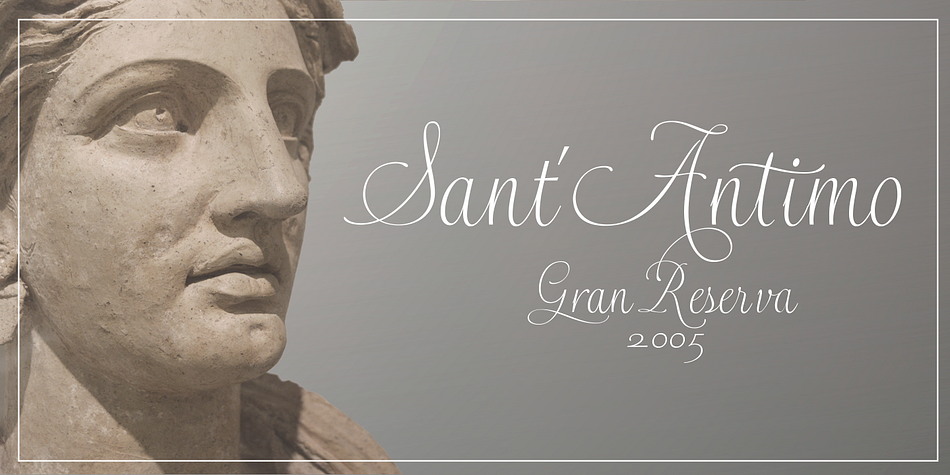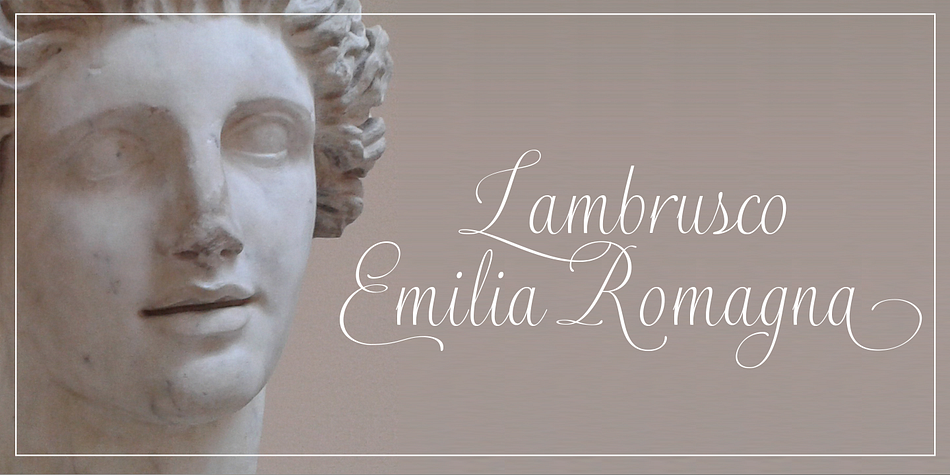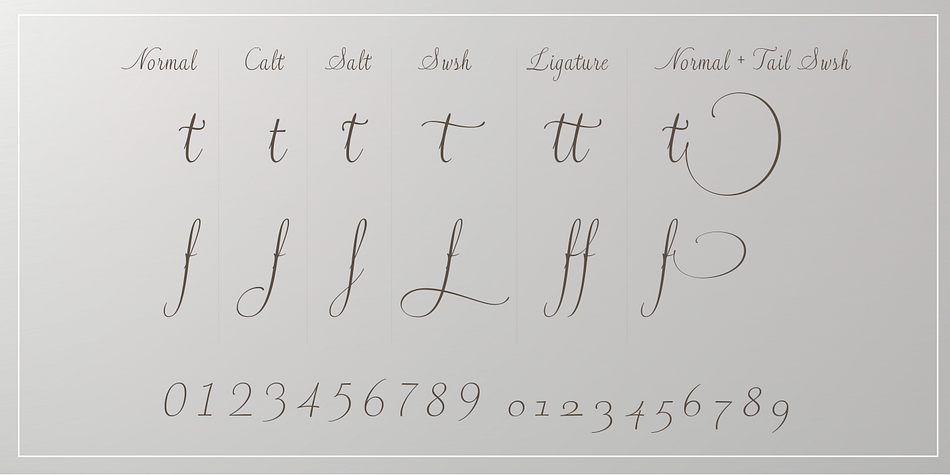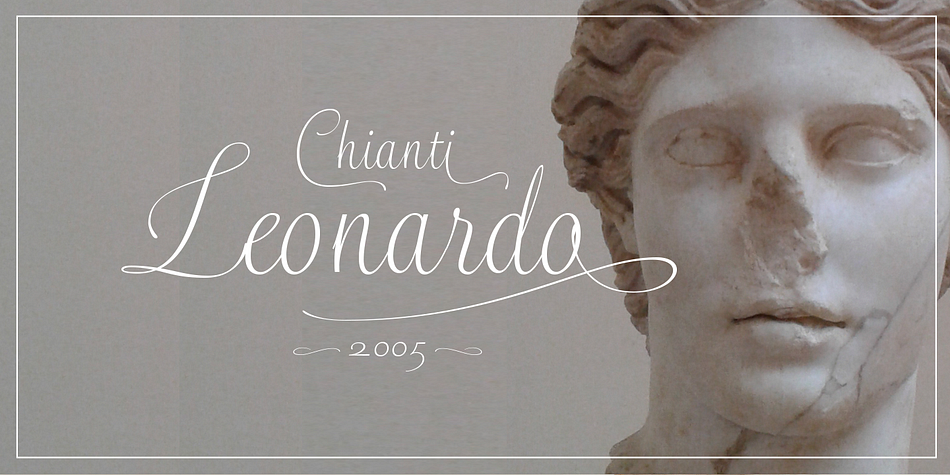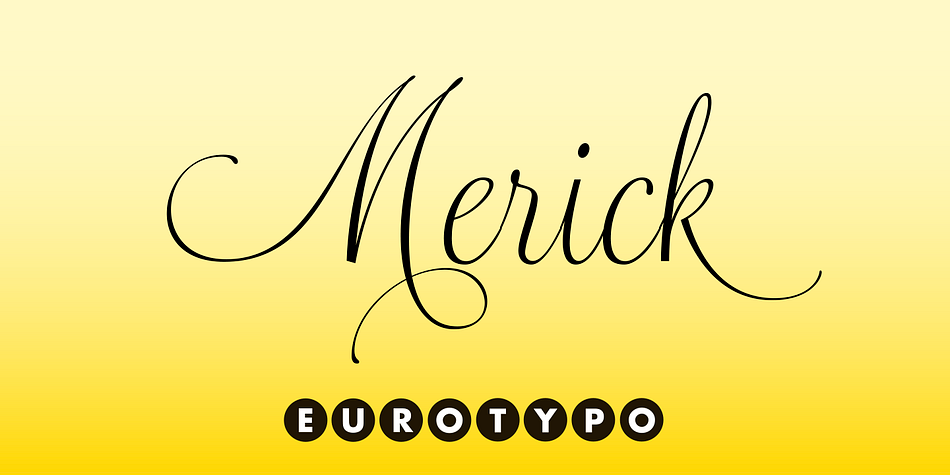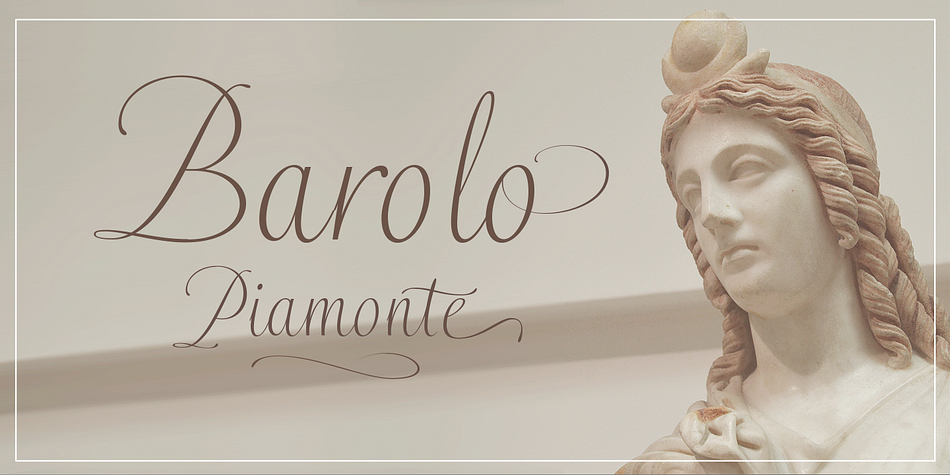
Designed by Olcar Alcaide, Merick is a script font published by Eurotypo.
Merick is a modern and slightly condensed cursive, carefully drawn to obtain a very readable font. This font is a versatile and elegant script, based on the author’s calligraphy, the lower cases are connecting with lots of dynamic and vivacious swashes, ligatures and alternates.
Merick is perfect for logotypes, posters, cards, menus, product packaging, as well as web applications. The swashes, tails and alternate letters will add a finishing touch to every logo or headline.